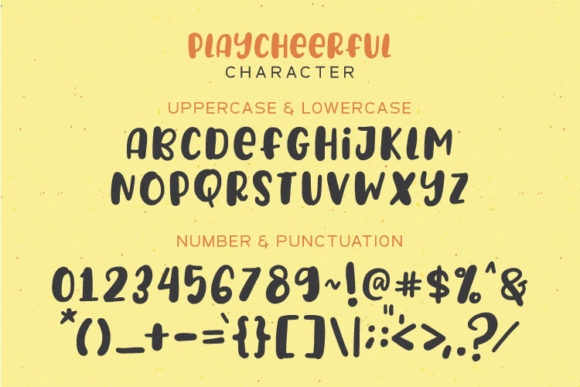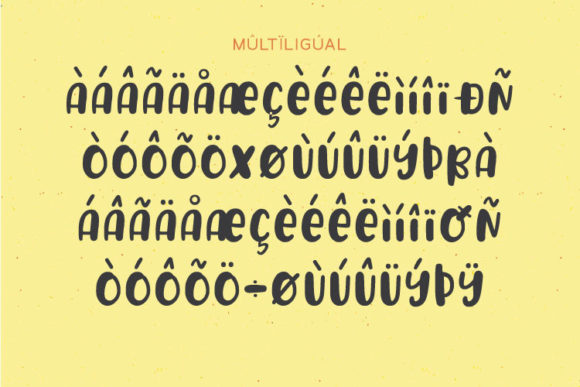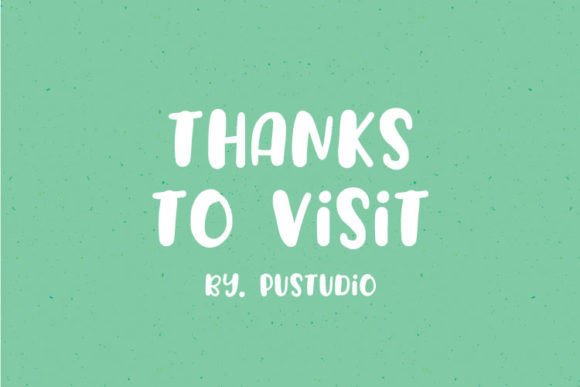
Introduction to Play Cheerful Font
Play Cheerful is a cute and friendly looking display font.
Whether you are using it for cartoon-related designs, childrenโs games, quotes, titles, brand names, book covers, posters, or just any creation that requires a touch of beauty, this font is a great choice .